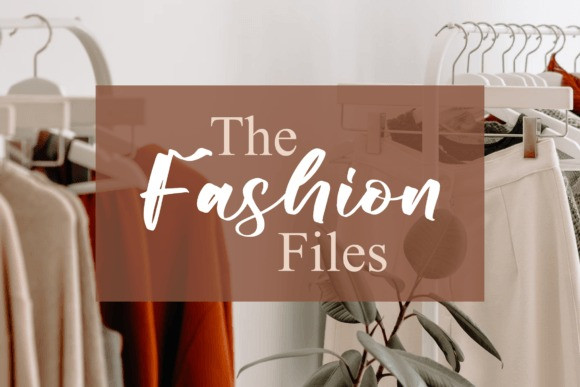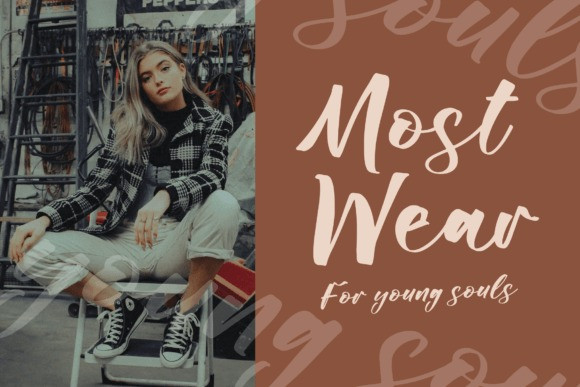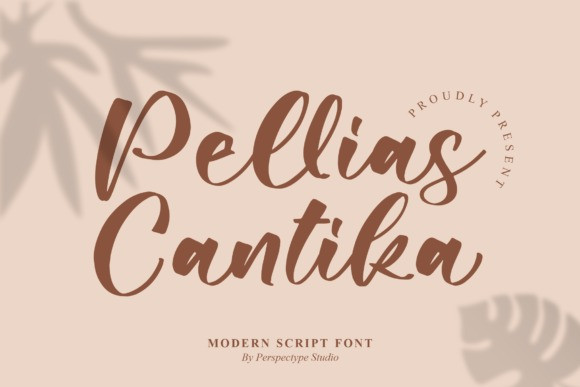
Pellias Cantika Font
Pellias Cantika Script Font is a modern and elegant script font. It looks stunning on wedding invitations, thank you cards, quotes, greeting cards, logos, business cards, and every other design which needs a romantic touch.